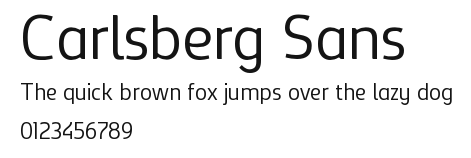
Carlsberg Sans Preview
• Font Name: Carlsberg Sans
• Font Style: Light
• Full Font Name: Carlsberg Sans Light
About Carlsberg Sans.ttf
Carlsberg Sans.ttf is a modern, elegant sans-serif font designed for ultimate readability and visual harmony. Perfect for branding, headlines, web design, and print materials.